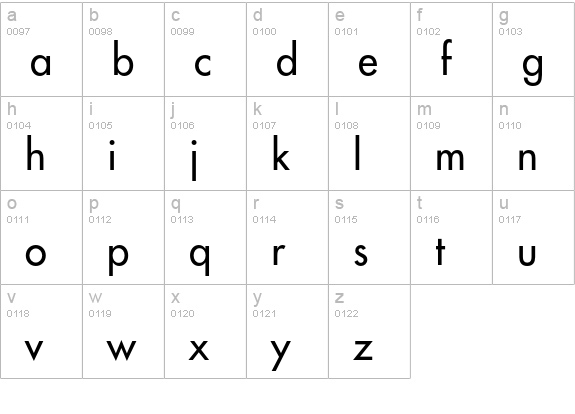
Futura Medium is a balanced, medium-weight variant in the Futura typeface family \xE2\x80\x94 well suited to sub-headlines, navigation, and balanced editorial work.
Futura Medium is a timeless and versatile font that exudes modernity and sophistication. Its clean and geometric design makes it perfect for a wide range of design projects, from branding to editorial design. The medium weight strikes a balance between boldness and elegance, making it suitable for both titles and body text. One of the best things about Futura Medium is that it is available for free download at FontsMarket.com. This means that you can easily access this high-quality font for your projects without any extra cost. Whether you are a professional designer or a hobbyist, Futura Medium offers a sleek and contemporary option for your typography needs. Enhance your designs with the sleek and timeless appeal of Futura Medium today.